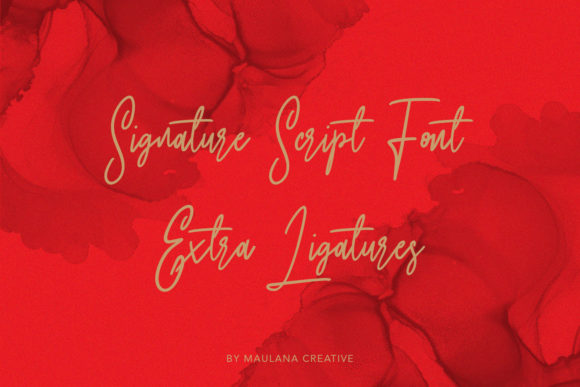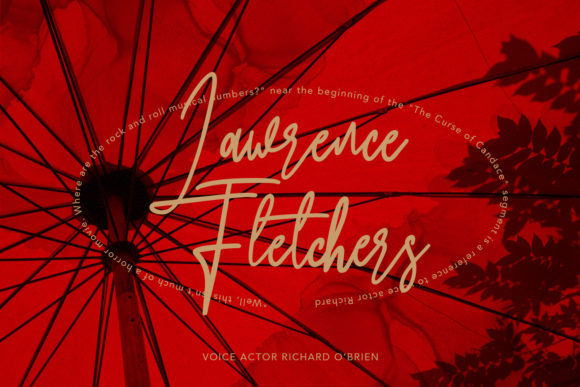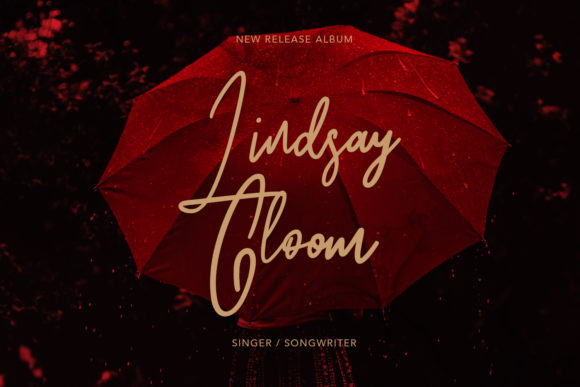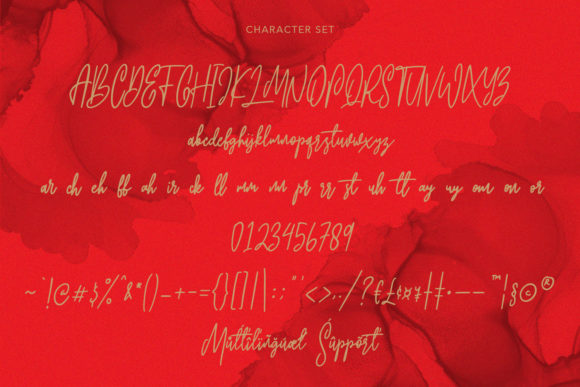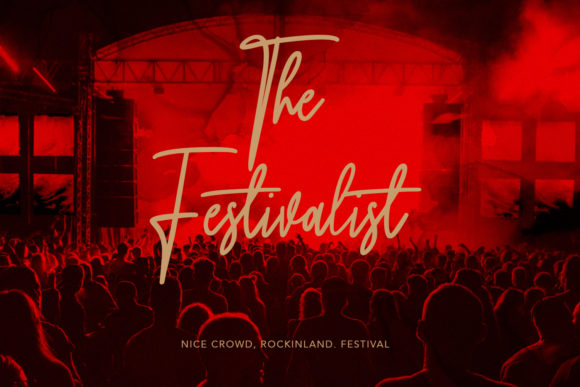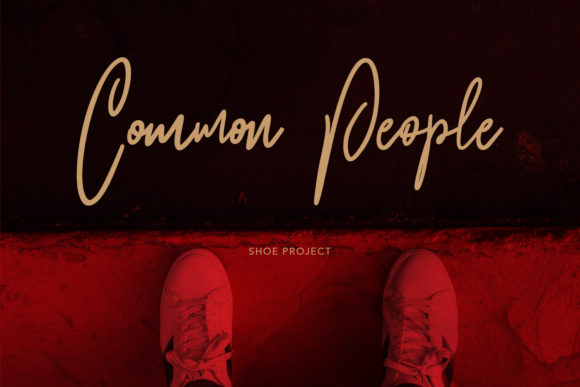
Astoylist Font: Elevate Your Designs with Style and Sophistication
Are you a designer or crafter looking for a font that can add a touch of elegance and sophistication to your creative projects? Look no further than Astoylist Font, a stylish and fashionable handwritten font that is sure to become a true favorite in your collection.
Masterfully designed to bring each of your creative ideas to the highest level, Astoylist Font is the perfect choice for anyone looking to add a dash of style and personality to their designs. Whether you’re working on a branding project, a craft project, or simply looking for a font that can help you stand out from the crowd, Astoylist Font is the perfect solution.
What Makes Astoylist Font So Special?
So, what sets Astoylist Font apart from other fonts on the market? For starters, its unique and stylish handwritten design is sure to catch the eye and leave a lasting impression. The font’s flowing lines and elegant curves make it perfect for use in a variety of design applications, from logos and branding materials to invitations and crafts.
Another key feature of Astoylist Font is its versatility. Whether you’re looking for a font that can add a touch of sophistication to your designs or simply want a font that is easy to read and understand, Astoylist Font is the perfect choice. The font’s clear and legible design makes it perfect for use in body text, while its stylish and elegant appearance makes it perfect for use in headlines and titles.
How to Use Astoylist Font in Your Designs
- Pair it with other fonts: Astoylist Font pairs perfectly with other fonts, making it easy to create visually appealing and interesting designs. Try pairing it with a bold sans-serif font for a striking contrast.
- Use it for headlines: Astoylist Font’s elegant and stylish design makes it perfect for use in headlines and titles. Use it to add a touch of sophistication to your designs and draw attention to key information.
- Experiment with colors: Astoylist Font looks great in a variety of colors, from bold and bright to soft and pastel. Experiment with different colors to find the perfect look for your design.
The Benefits of Using Astoylist Font
So, what are the benefits of using Astoylist Font in your designs? Here are just a few:
- Elegance and sophistication: Astoylist Font adds a touch of elegance and sophistication to any design, making it perfect for use in high-end branding and marketing materials.
- Versatility: Astoylist Font is versatile and can be used in a variety of design applications, from logos and branding materials to invitations and crafts.
- Easy to read: Despite its elegant and stylish design, Astoylist Font is easy to read and understand, making it perfect for use in body text.
In conclusion, Astoylist Font is a stylish and fashionable handwritten font that is sure to become a true favorite in your collection. With its unique and elegant design, versatility, and ease of use, Astoylist Font is the perfect choice for designers and crafters looking to add a touch of sophistication and style to their creative projects.